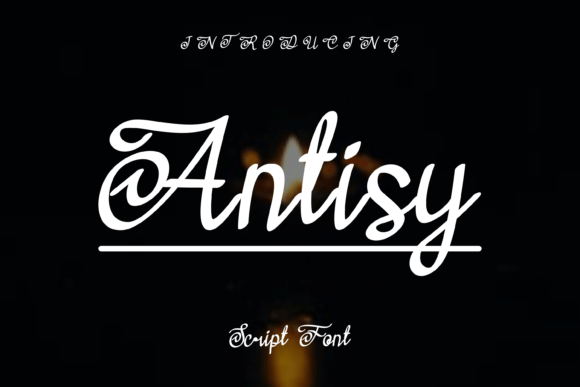
Introducing Antisy Font: Elevate Your Designs with Elegance
Are you on the lookout for a font that adds a touch of sophistication and delicacy to your designs? Look no further than Antisy Font, a stylish and delicate handwritten font that is sure to make your projects stand out. With its thin and smooth vibe, Antisy is the perfect addition to any design, from crafting and DIY projects to professional branding and marketing materials.
The Characteristics of Antisy Font
Antisy Font boasts a unique set of characteristics that make it an ideal choice for designers and crafters alike. Its delicate and handwritten style gives it a personal and intimate feel, making it perfect for projects that require a touch of elegance and refinement. The font’s thin lines and smooth curves create a sense of fluidity and continuity, making it easy to read and visually appealing.
Why Choose Antisy Font?
• Versatility: Antisy Font is incredibly versatile, making it suitable for a wide range of projects, from crafting and DIY to professional branding and marketing materials.
• Elegance: The font’s delicate and handwritten style adds a touch of elegance and sophistication to any design.
• Readability: Antisy Font is easy to read, making it perfect for projects that require a clear and concise message.
• Uniqueness: With its unique blend of thin lines and smooth curves, Antisy Font is sure to make your projects stand out from the crowd.
Using Antisy Font in Your Designs
• Pair it with bold fonts: Antisy Font pairs perfectly with bold fonts, creating a striking contrast that adds visual interest to your designs.
In conclusion, Antisy Font is a stylish and delicate handwritten font that is sure to elevate your designs to the next level. With its thin and smooth vibe, Antisy is the perfect addition to any project, from crafting and DIY to professional branding and marketing materials. Whether you’re a designer, crafter, or DIY enthusiast, Antisy Font is a must-have in your font collection.